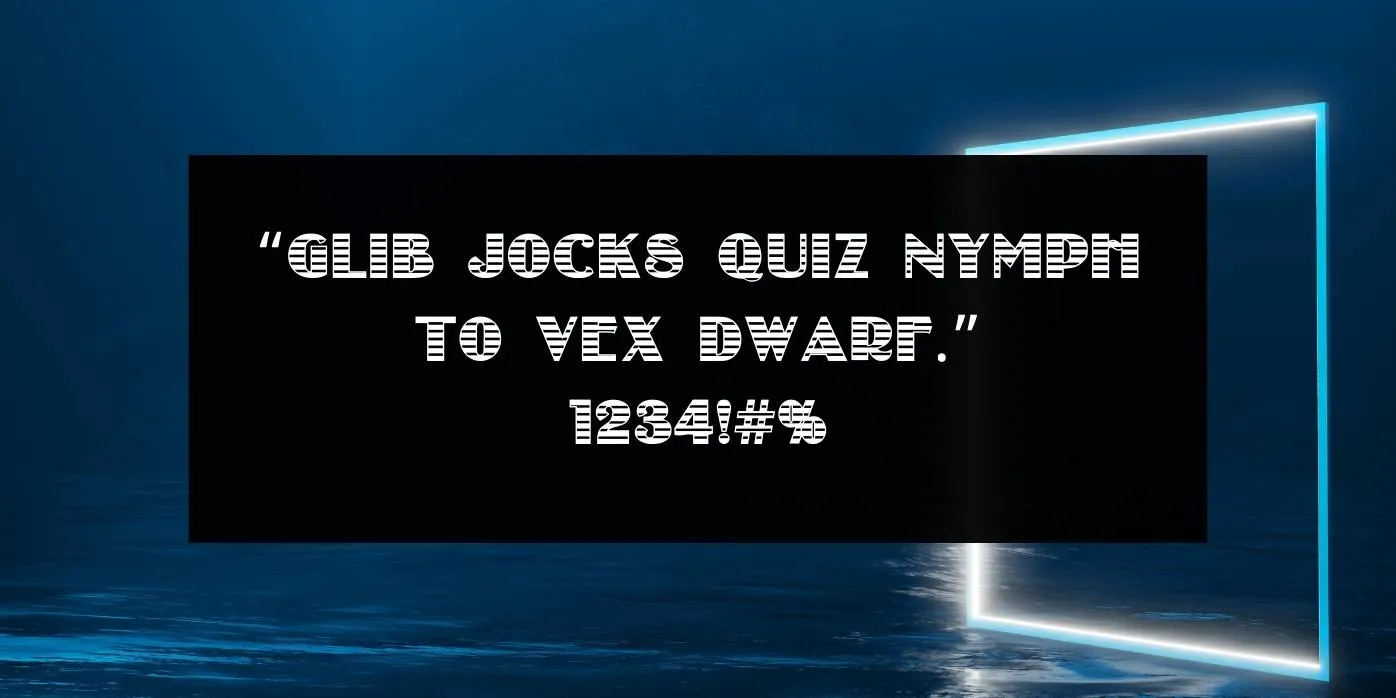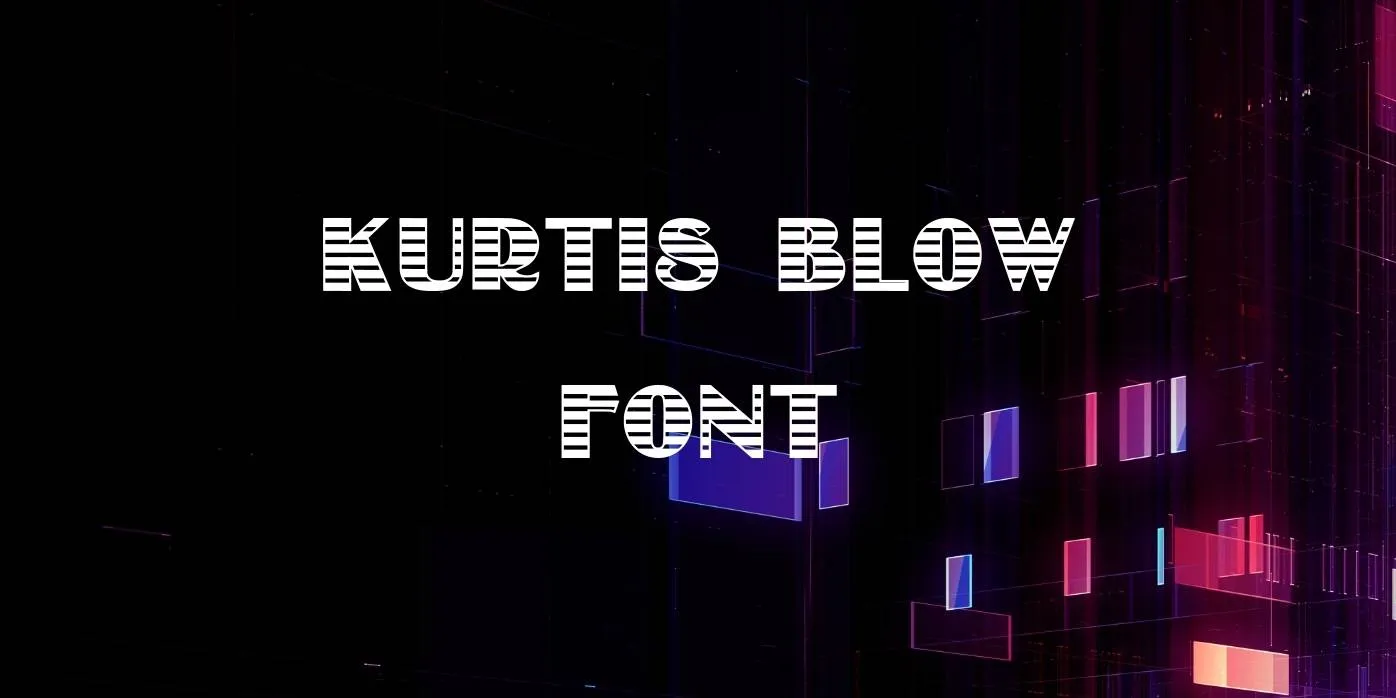
Kurtis Blow Font
Kurtis Blow Font is a fancy, bold, and all-caps font named after the famous American rapper Kurtis Blow. The font was created by Ray Larabie of Typodermic Fonts and is free for personal use. Commercial licenses are available from the author. This Font is perfect for creating streetwear or hip-hop style designs.
The thick, blocky letters are great for making headlines and logos that really stand out. If you’re looking for a bold and stylish font for your next project, be sure to check out this Font! The typeface family supports lots of foreign languages and seems better when you pair it with another decorative typeface like ed gothic font an elegant sans-serif style font with a simple attractive visual.